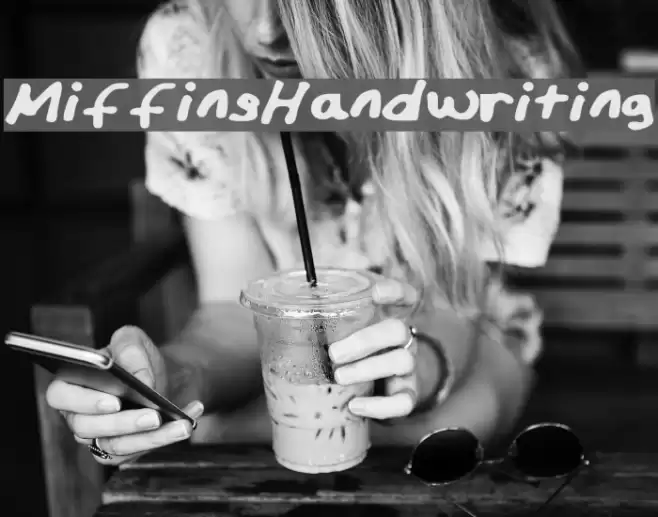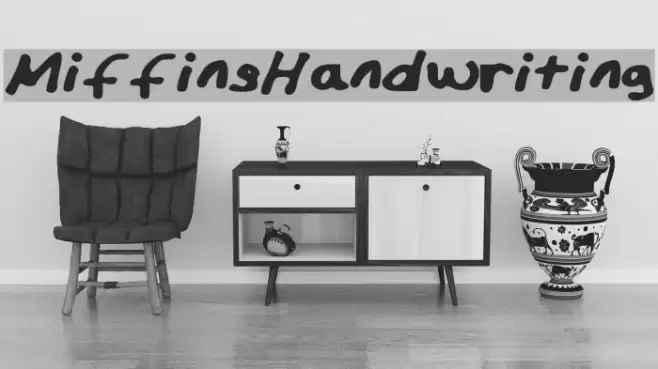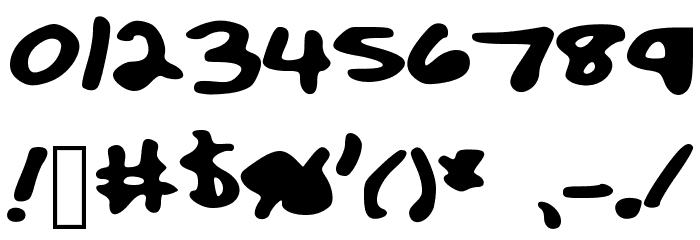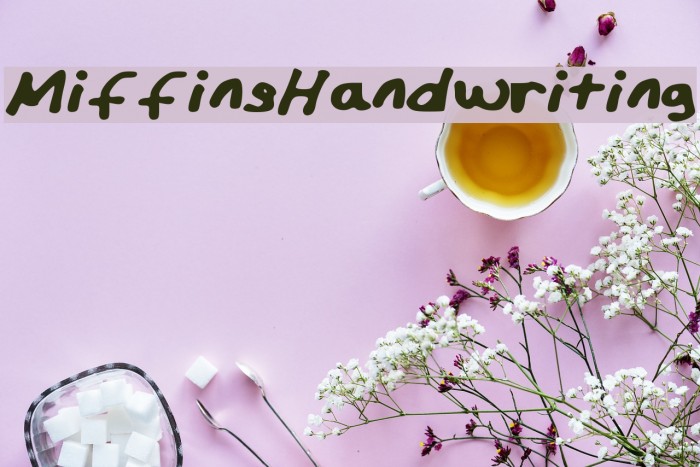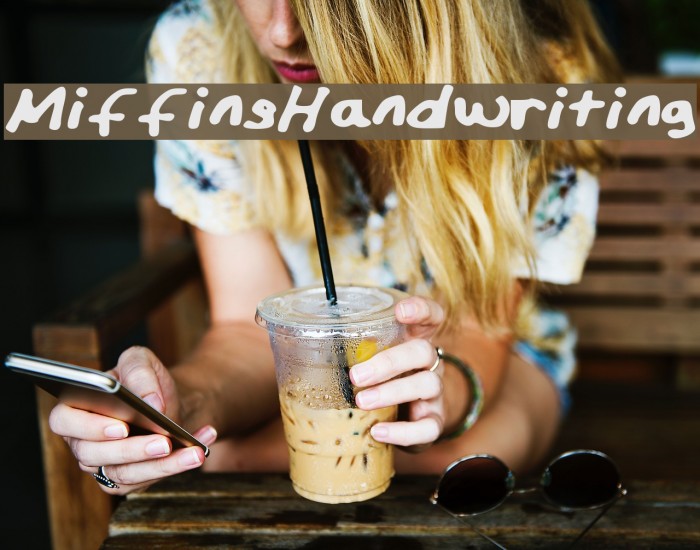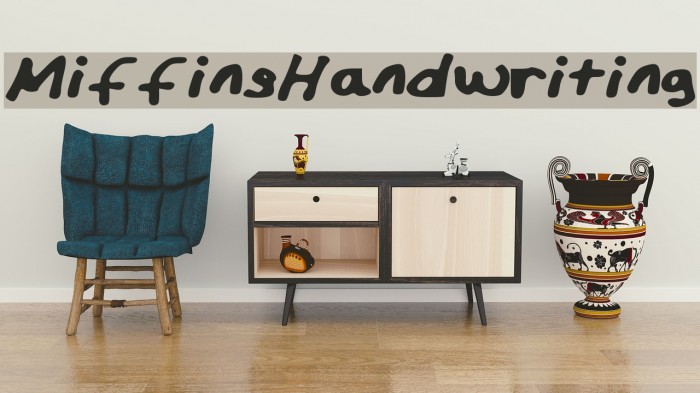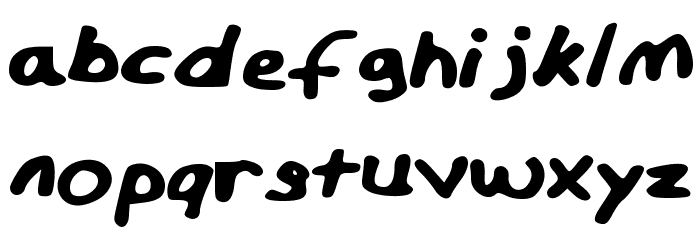
MiffinsHandwriting Font
MiffinsHandwriting Description
This playful and dynamic font features a handwritten style with bold, rounded strokes that give it a friendly and approachable appearance. The characters are slightly irregular, mimicking the natural flow of handwriting, which adds a personal touch to any design. The uppercase and lowercase letters maintain a consistent style, with smooth curves and a slight slant, enhancing the casual and informal vibe. The numbers and special characters are equally expressive, ensuring versatility across various applications. This font is perfect for projects that require a human touch, such as invitations, greeting cards, or playful branding.
A bold, handwritten font with rounded strokes and a playful, informal style from Uncategorized fonts.
- Proposed Projects: Ideal for greeting cards, invitations, playful branding, and personal projects.
- Overall Style: Playful, Informal
- Use Case: Greeting cards, Invitations, Playful branding